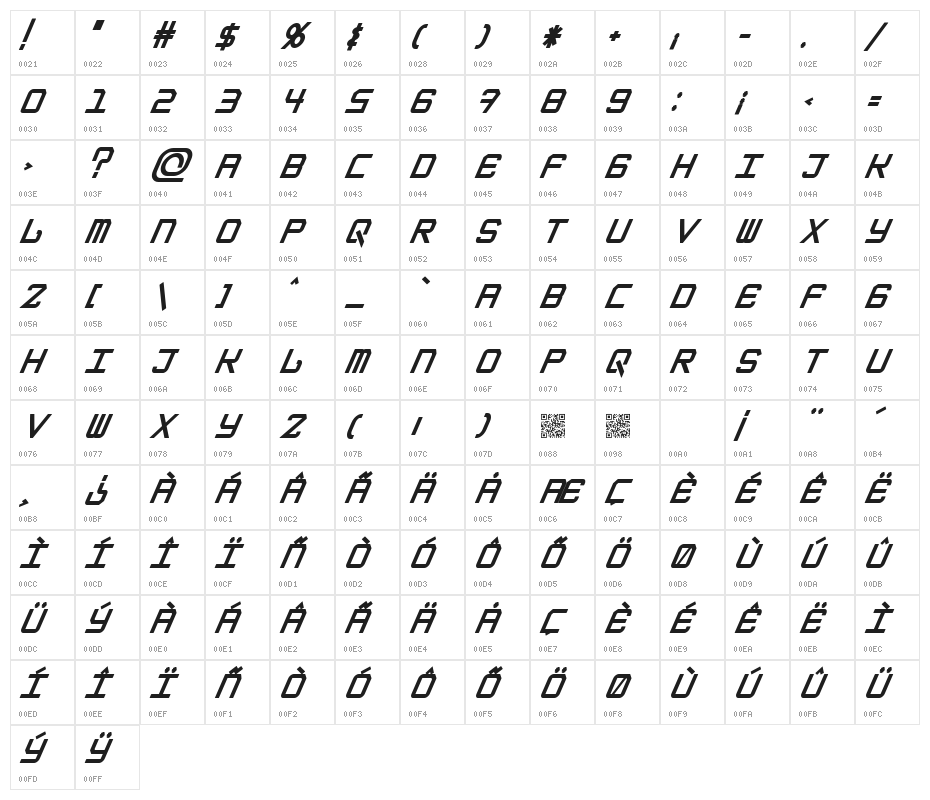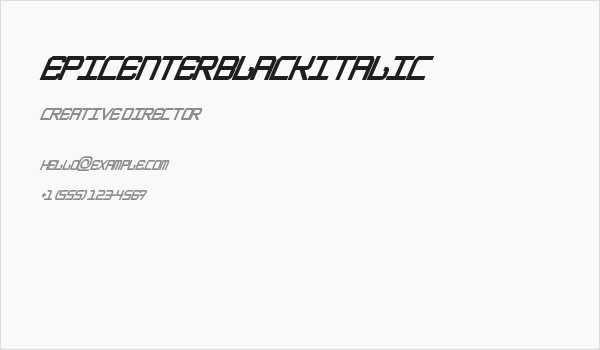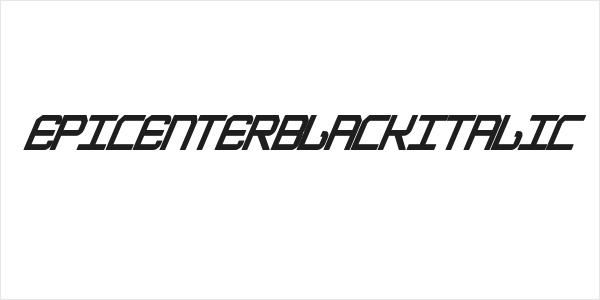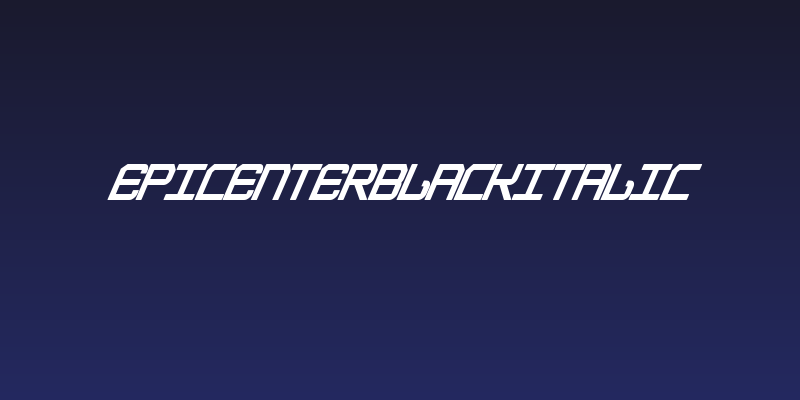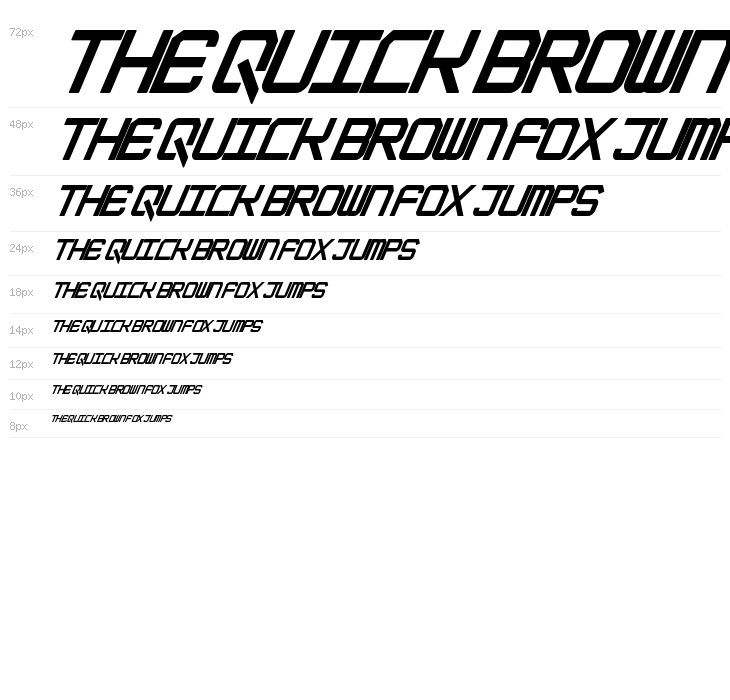
EpicenterBlackItalic Font
EpicenterBlackItalic Description
This font exudes a modern and dynamic style with its bold, italicized characters. The angular design and sharp edges give it a futuristic and tech-inspired appearance. Each letter is distinctly slanted, enhancing the sense of motion and speed. The uppercase and lowercase letters maintain a consistent style, while the numerals and special characters complement the overall aesthetic. The font's bold weight and italic nature make it stand out, ideal for projects that require a strong visual impact.
| Overall Style | Futuristic, Dynamic |
| Proposed Projects | Ideal for technology branding, sports team logos, futuristic posters, and dynamic advertising campaigns. |